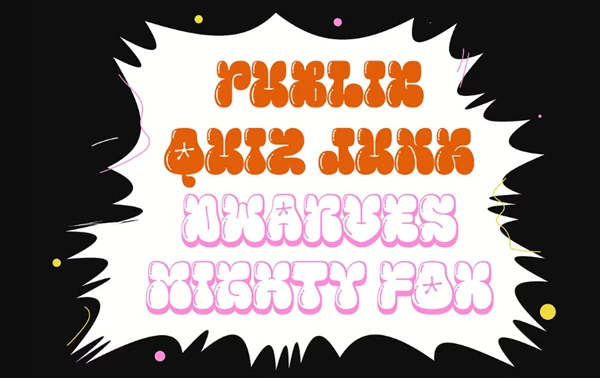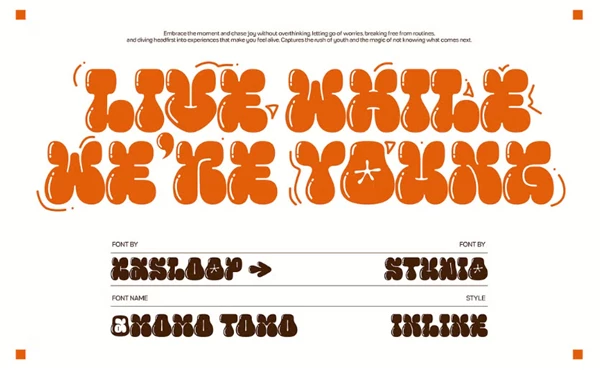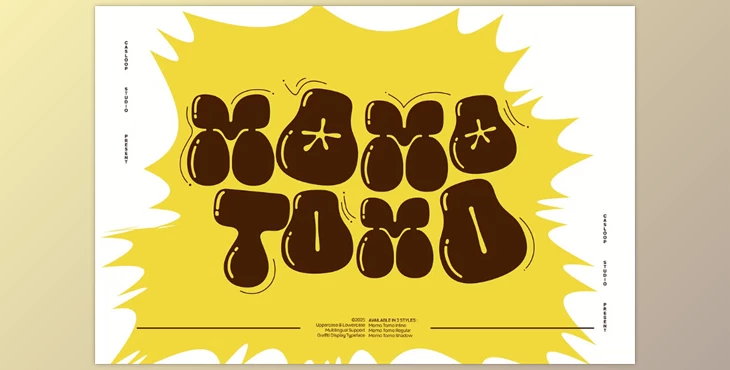
MOMO TOMO - Graffiti Pop Bubble Font:
MOMO TOMO is a bouncy font with a chunky display that's reminiscent of street graffiti and comic book word art. It's a certain font to appeal to the young and young-at-heart generation for any kind of display. If you have merchandise launches, permanent branding, and anything that could use a solid attitude, resonate with MOMO TOMO. It'll make your project stand out in all the right ways. MOMO TOMO comes in three styles (Regular, Inline, and Shadow) along with a separate palette of stylistic alternates so you can create your own visual rhythm and letter combinations to adapt these letters to your own. Use MOMO TOMO for your next clothing line, zine, or TikTok reel. This juicy, fresh font is ripe for the plucking.
Includes
- 3 Styles: Regular/ Inline/ Shadow
Uppercase/ Lowercase/ Stylistic Alternates inclusive of SS01 and SS02
Multilingual
Ideal for
- Logos
- Merch launch
- Skate brands
- Stickers/ Animation/ Kinetics
- Zines/ TikTok